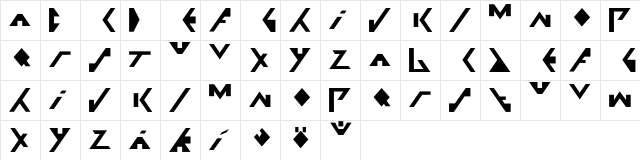
X Regular Free Font
X Regular
Foundry: Copr. Ol f Birnagardarsdottir, . Published by FontShop International. FUSE release
Design Context for X
X is a composed and adaptable typeface that performs quietly and consistently across a wide range of design contexts.
Who designed the X Regular font?
This font was published by Copr. Ol f Birnagardarsdottir, . Published by FontShop International. FUSE release. Check the technical specs section for copyright and designer details.